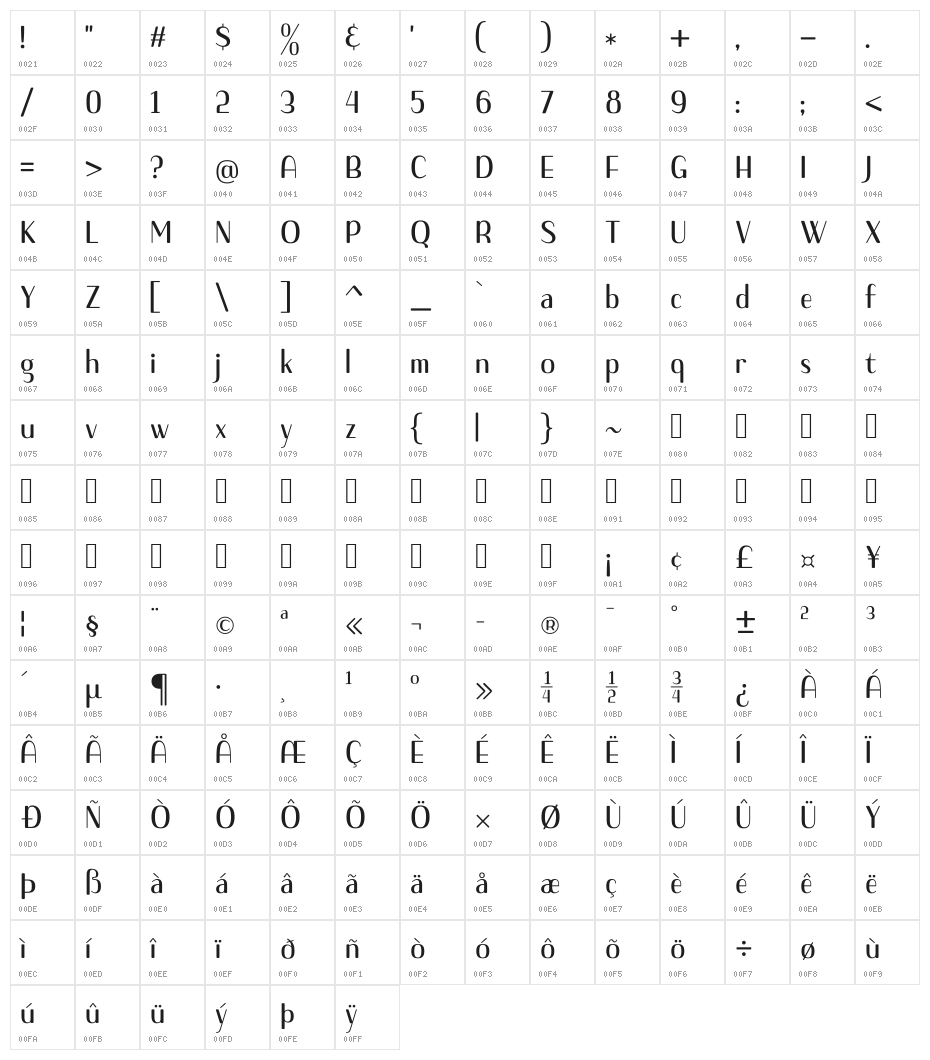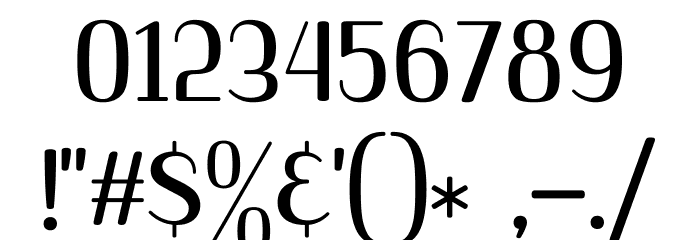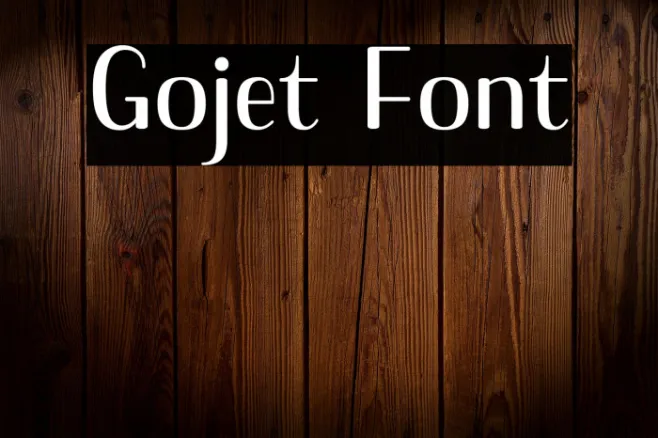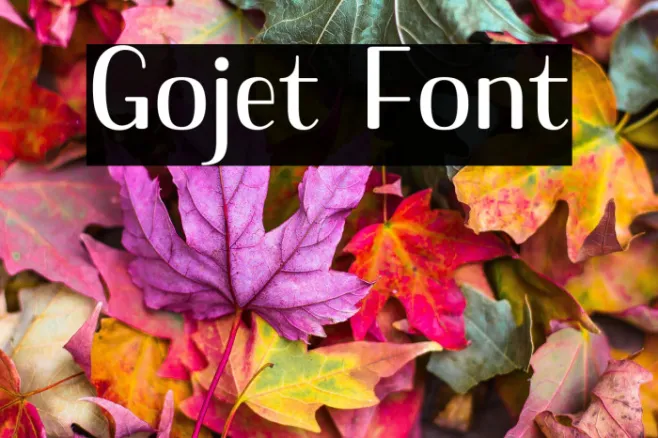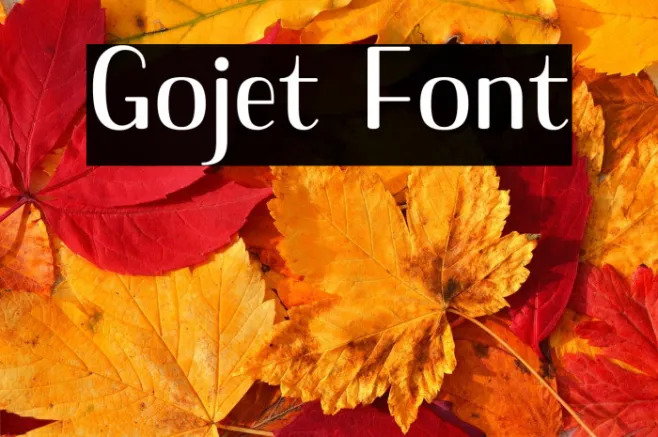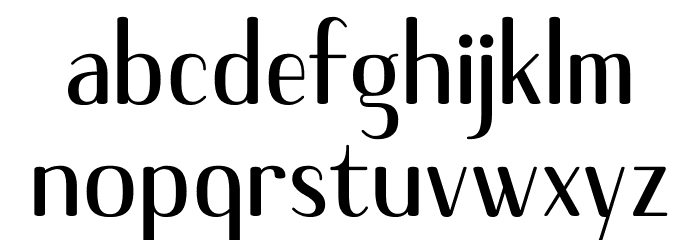
Gojet Font
Gojet Description
This font features a unique blend of modern and vintage styles, characterized by its clean lines and slightly rounded edges. The uppercase letters are tall and narrow, giving a sense of elegance and sophistication. The lowercase letters maintain a consistent style, with smooth curves and a balanced structure. Numbers are clear and easy to read, making them suitable for a variety of applications. Special characters are well-designed, complementing the overall aesthetic of the font. The font's versatility makes it suitable for both digital and print media, offering a contemporary yet timeless appeal.